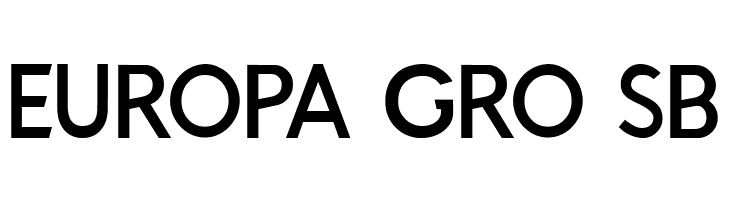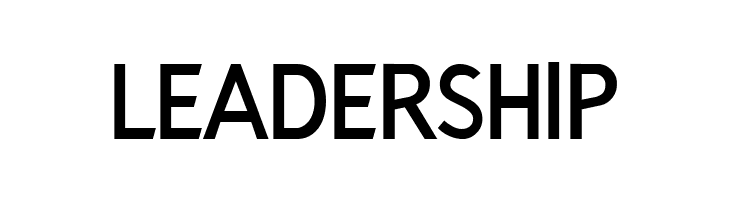
Energetic, handwritten script with tall, narrow forms and expressive strokes.
A whimsical, hand-drawn display font made of unique illustrated heads.
A quirky, hand-drawn display font made of expressive face illustrations.
A bold, rugged font with a hand-carved, artistic appearance.
A bold, modern sans-serif font with geometric influences.
A bold, three-dimensional font with a modern and dynamic style.
A bold, playful icon set of diverse hats and headwear.
A bold, brush-style script font with dynamic, textured strokes.
A playful, bold font with rounded, hand-drawn characters.
A bold, playful handwritten font with thick strokes and rounded edges.
A bold, flowing script font with a playful and energetic style.
Light, whimsical handwritten script with tall, airy letterforms.
A whimsical handwritten script with playful, flowing lines.
Handwritten, bold, italic script with a playful and elegant style.
Elegant, handwritten cursive script with a whimsical, airy style.
Light, whimsical handwritten script with tall, airy letterforms.
Light, whimsical handwritten script with a pronounced italic slant.
A bold, modern font with sharp angles and smooth curves, ideal for striking headlines.
A bold, modern font with geometric shapes and clean lines, perfect for impactful headlines and branding.
A casual, handwritten font with a flowing and dynamic style.
A bold, geometric font with strong, modern letterforms.
A playful, handwritten font with smooth, rounded edges and a modern, casual style.
A bold, textured font with a rugged, vintage appearance.
A bold, textured font with a vintage, distressed style.
An elegant and flowing script font with decorative loops and swirls.
A graceful script font with flowing, elongated strokes and elegant curves.
A decorative font with uppercase letters in heart shapes and classic serif numbers.
A playful, handwritten font with tall, narrow letters and a casual elegance.
A decorative cursive font with elegant loops and swashes, perfect for romantic designs.
A playful and whimsical font with flowing curves and unique letterforms.
A playful, hand-drawn font with bold, whimsical characters.